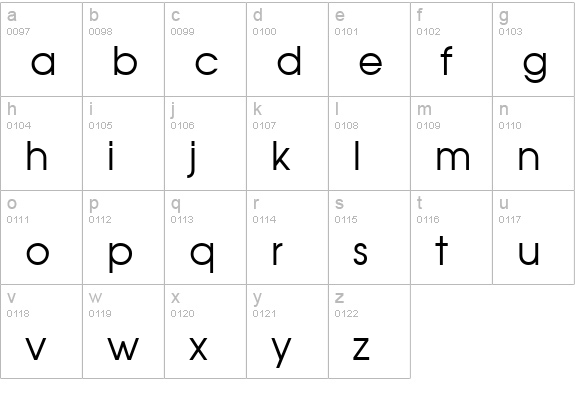
Atilla Normal Font Details
Atilla Normal is the standard, neutral variant in the Atilla typeface family \xE2\x80\x94 well suited to general body text, paragraphs, and standard typographic work.
Atilla Normal font is a versatile and modern typeface that combines elegance with readability. With its clean lines and balanced proportions, Atilla Normal is perfect for a wide range of design projects, from branding to editorial design. This font exudes a sense of professionalism and sophistication while maintaining a touch of warmth and approachability. The best part is, Atilla Normal font is completely free to download at FontsMarket.com. You can easily enhance your creative projects with this high-quality font without any cost. Whether you're working on a website, poster, logo, or any other design, Atilla Normal font will elevate your work with its timeless appeal. Experience the beauty and versatility of Atilla Normal font today by downloading it for free at FontsMarket.com.